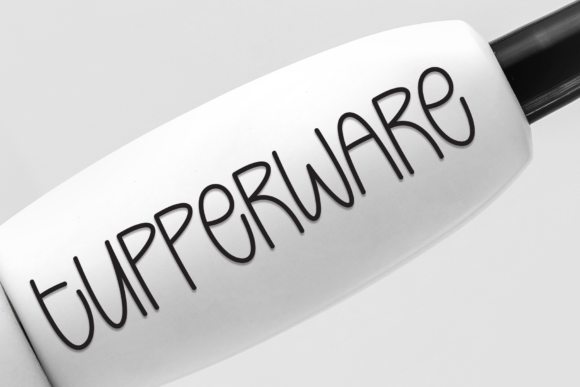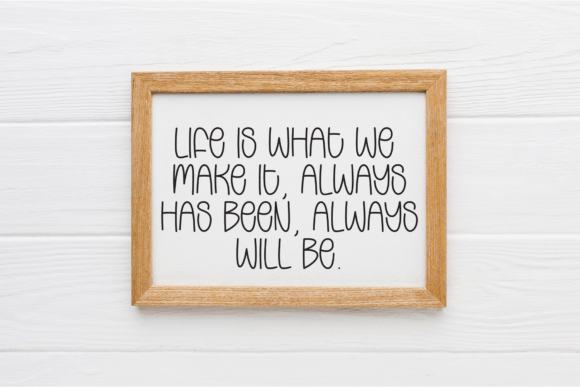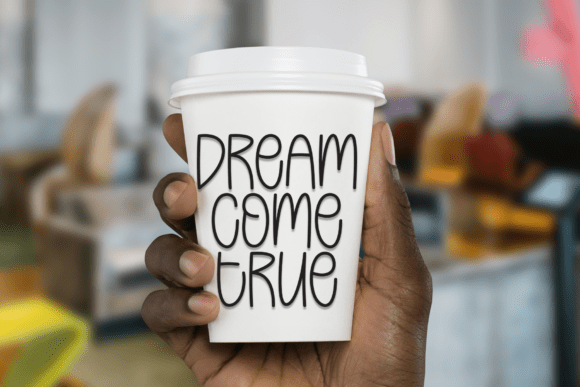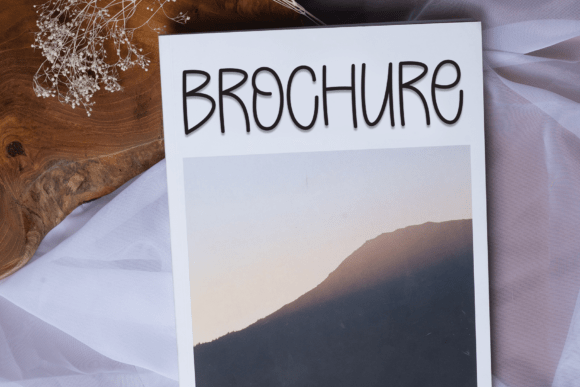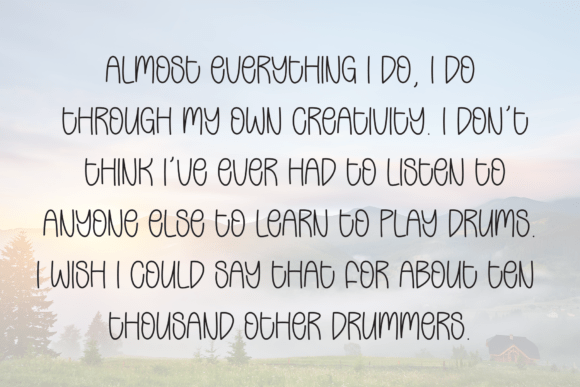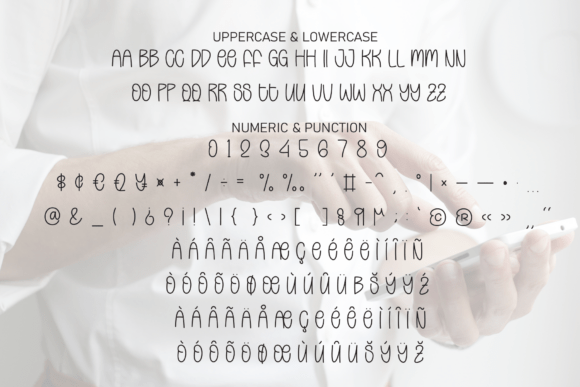
Introduction to Digital Handwriting Font
Remember the thrill of writing a heartfelt letter to a loved one, or designing a handmade card for a special occasion? The personal touch and emotional connection that comes with handwriting is undeniable. As designers, we strive to recreate that same sense of warmth and intimacy in our digital projects. That’s where the Digital Handwriting Font comes in – a delightful display font that captures the essence of handwritten charm with a playful twist.
This enchanting font is a valuable asset for designers, offering a unique and expressive design resource that can elevate any creative project. Whether you’re working on a wedding invitation, a children’s book, or a social media campaign, the Digital Handwriting Font is sure to add a touch of fun and personality to your design. With its high-quality design and transparent background, this font is perfect for designers who want to add a personal touch to their work without compromising on style or functionality.
Key Features of Digital Handwriting Font
- High-quality digital handwriting font with a unique, handcrafted design, perfect for creative projects that require a personal touch.
- Unique characteristics include subtle imperfections and variations in line width, giving the font a truly hand-written feel.
- Designed to be versatile, making it suitable for a wide range of creative projects, from logos and branding to editorial and advertising content.
- Comes with a comprehensive character set, including uppercase and lowercase letters, numbers, and punctuation marks, to ensure seamless typing and editing.
Honest Review: Digital Handwriting Font
I recently came across the Digital Handwriting Font, and I’m excited to share my thoughts on this design resource. As a designer, I’m always on the lookout for high-quality fonts that can elevate my creative projects.
Here’s what works well:
- ✨ The font has a unique, handwritten feel that’s perfect for adding a personal touch to your designs.
- ✨ The font is highly customizable, allowing you to adjust the size, color, and style to fit your project’s needs.
However, I do have a few concerns:
- ⚠️ The font may not be suitable for small text, as the characters can become blurry or difficult to read.
Overall, I’m impressed with the Digital Handwriting Font. It’s a great addition to any designer’s library, and its unique style makes it perfect for creative projects. With a few tweaks to the font’s design, it could be even more versatile and user-friendly.
The Digital Handwriting Font is ideal for use in a variety of creative projects, including blog posts, social media graphics, and marketing materials. It’s also a great choice for personal projects, such as journaling or scrapbooking.